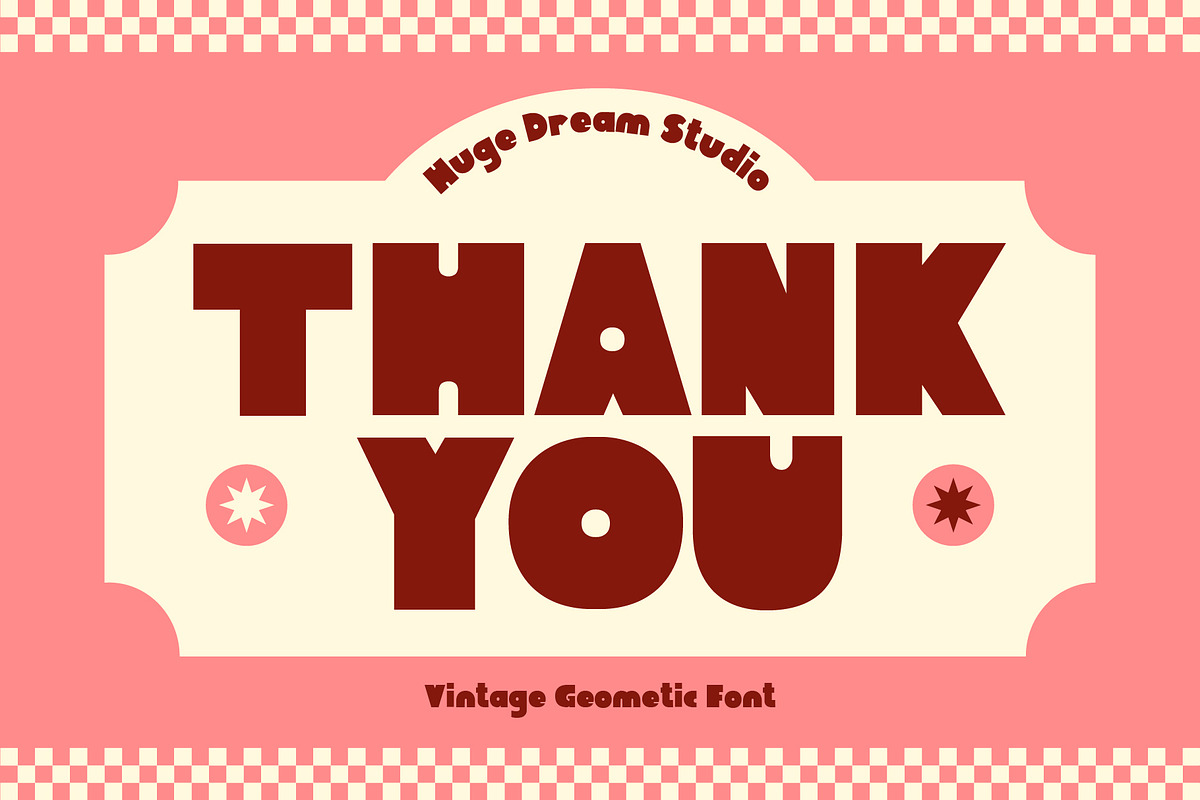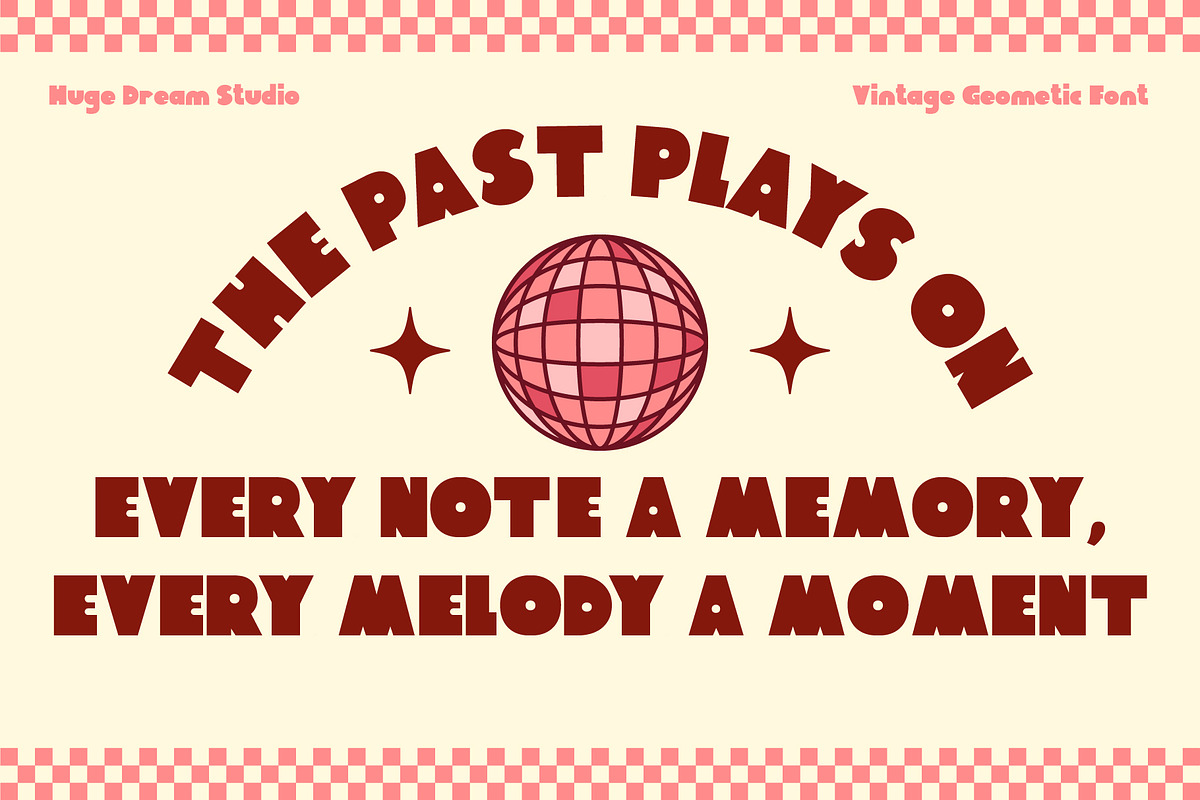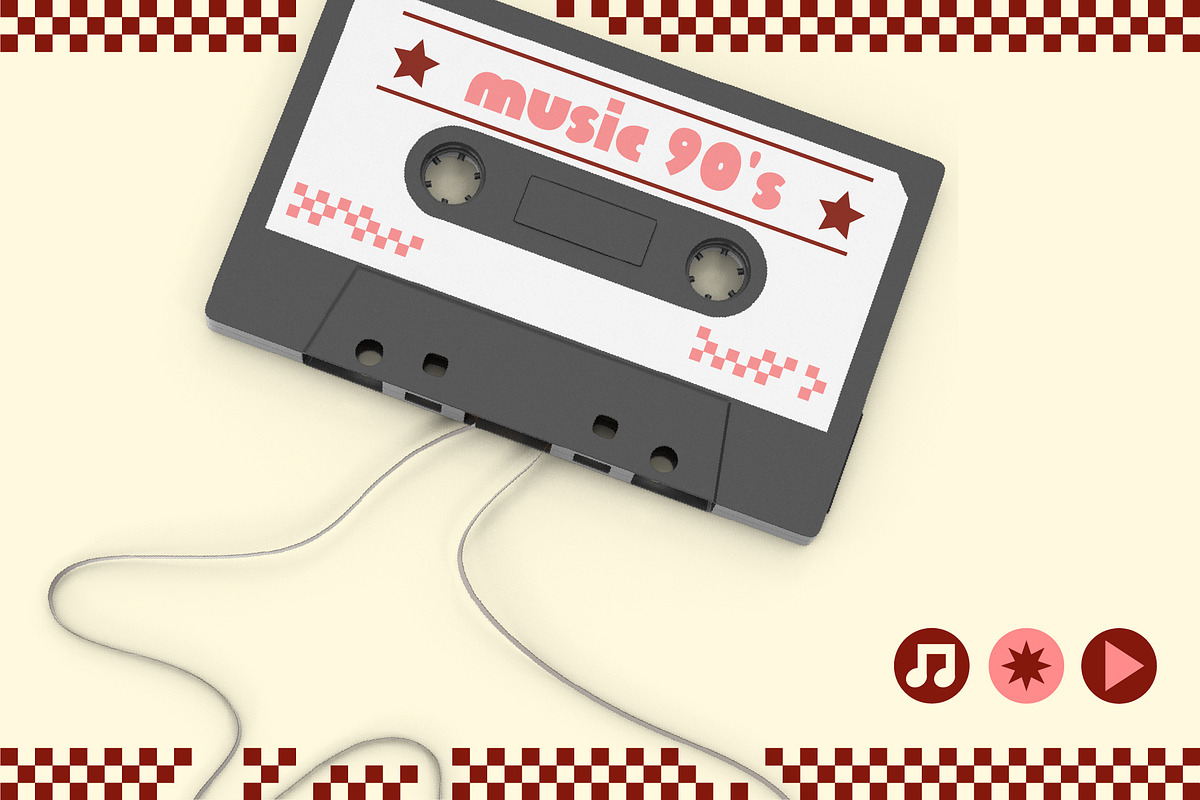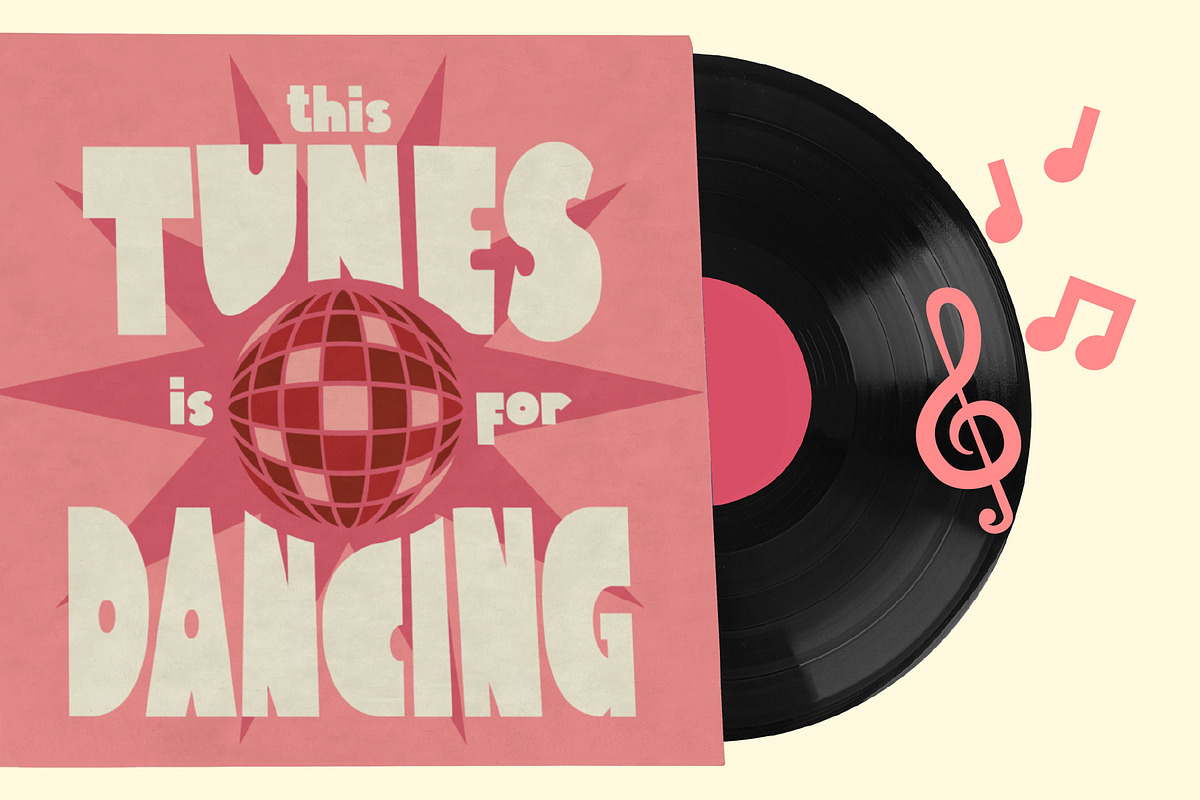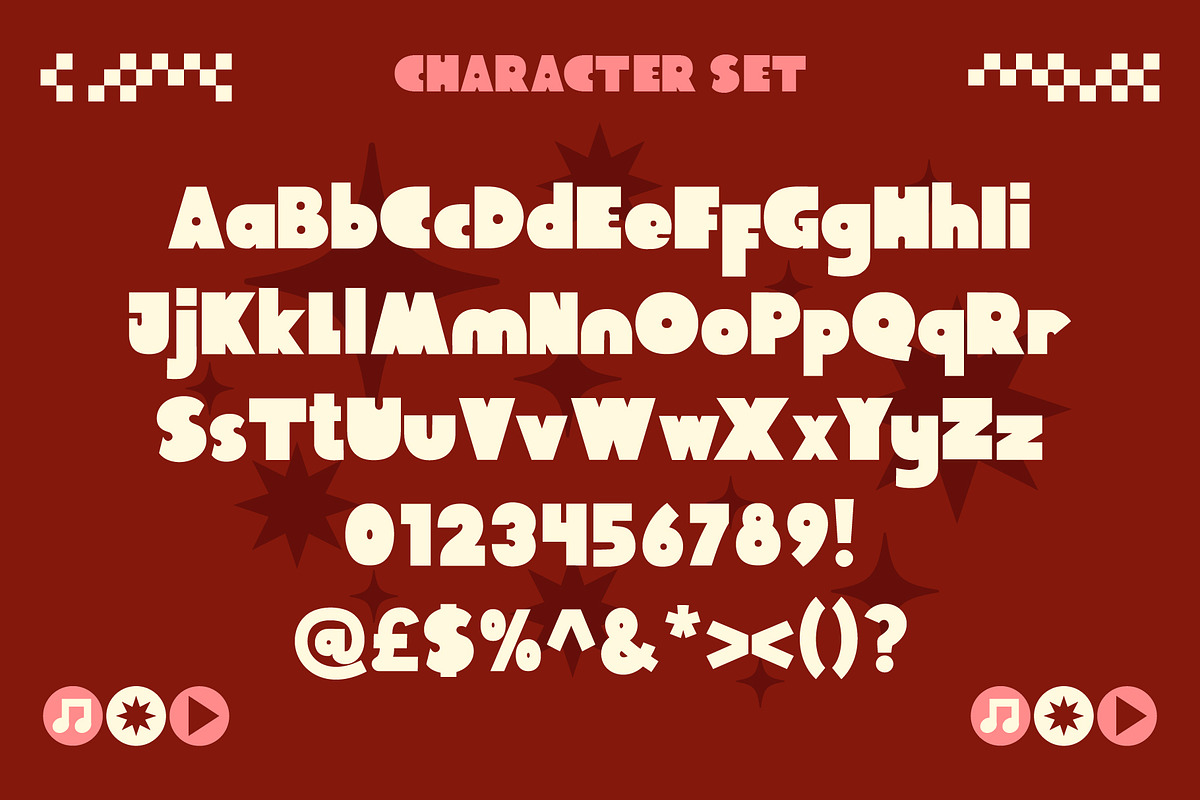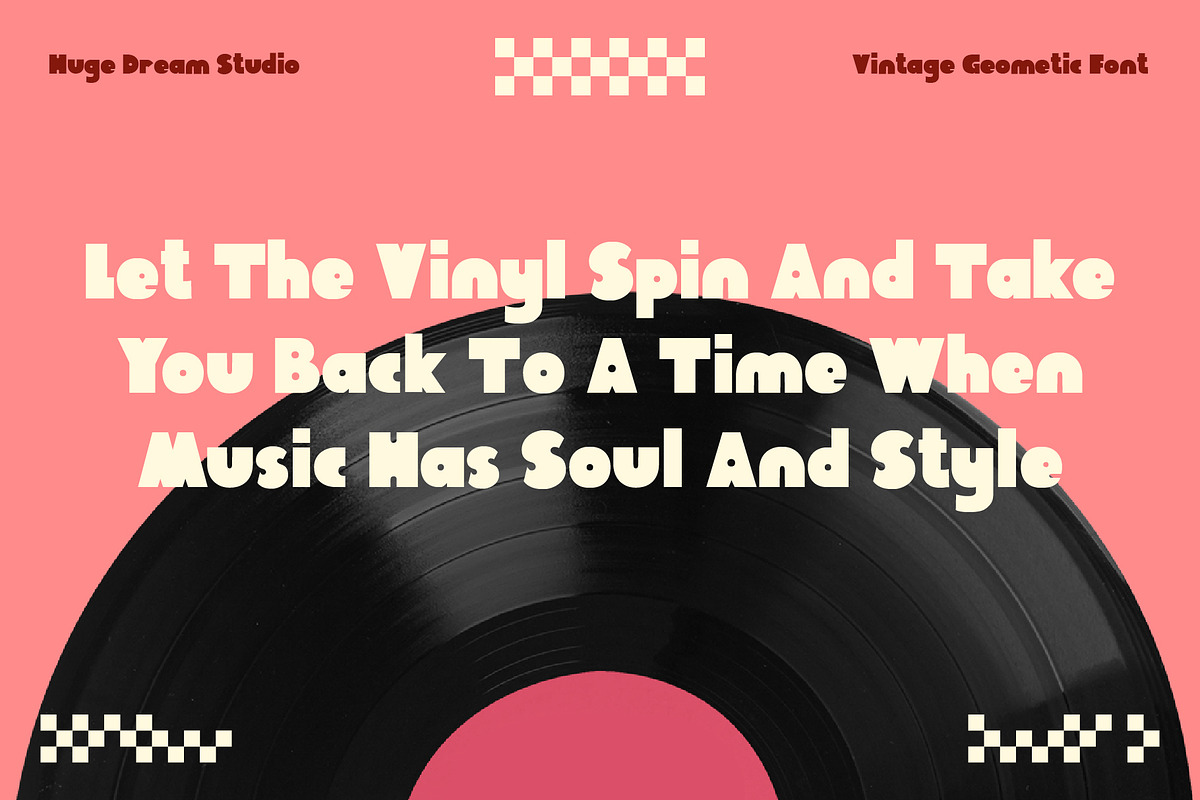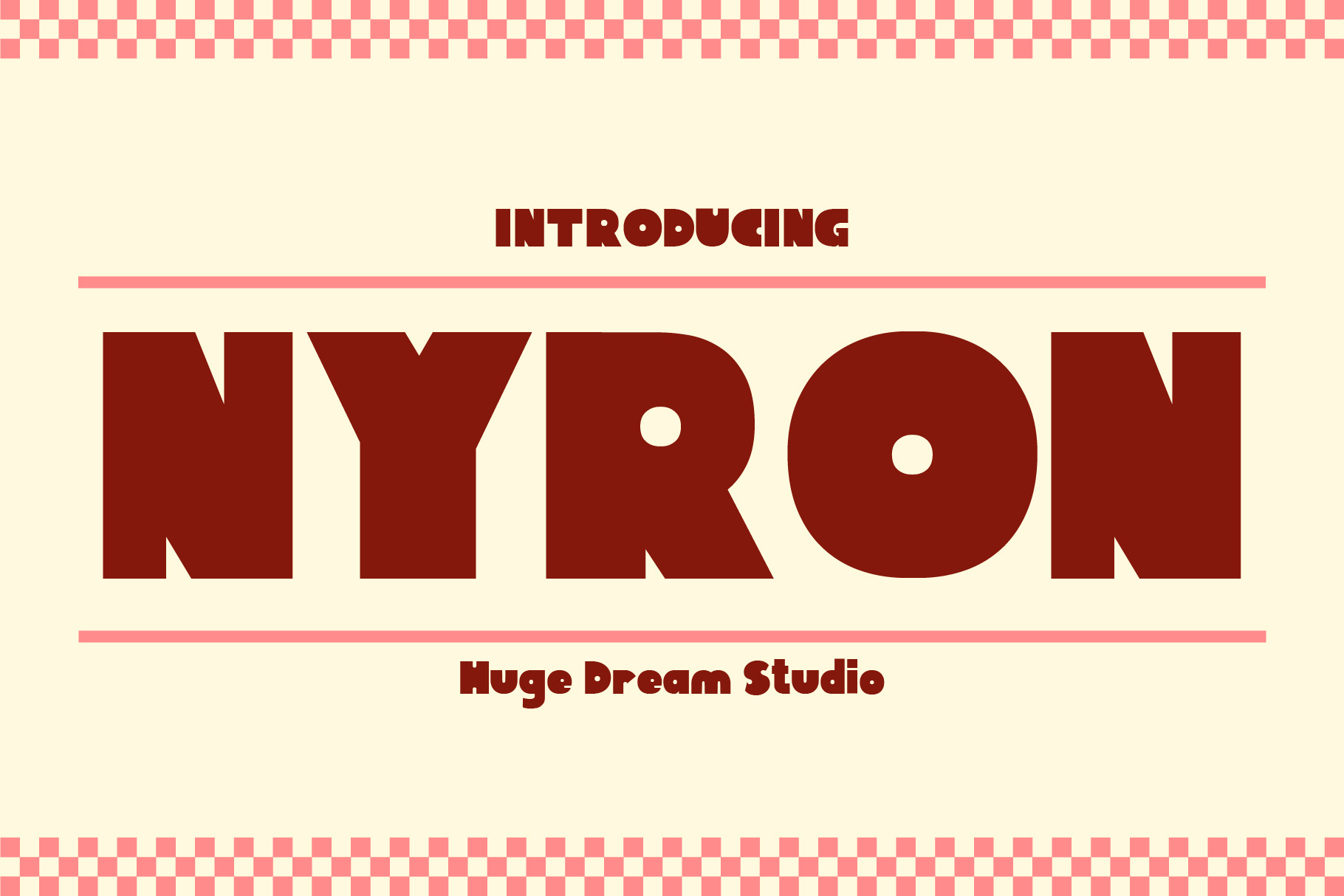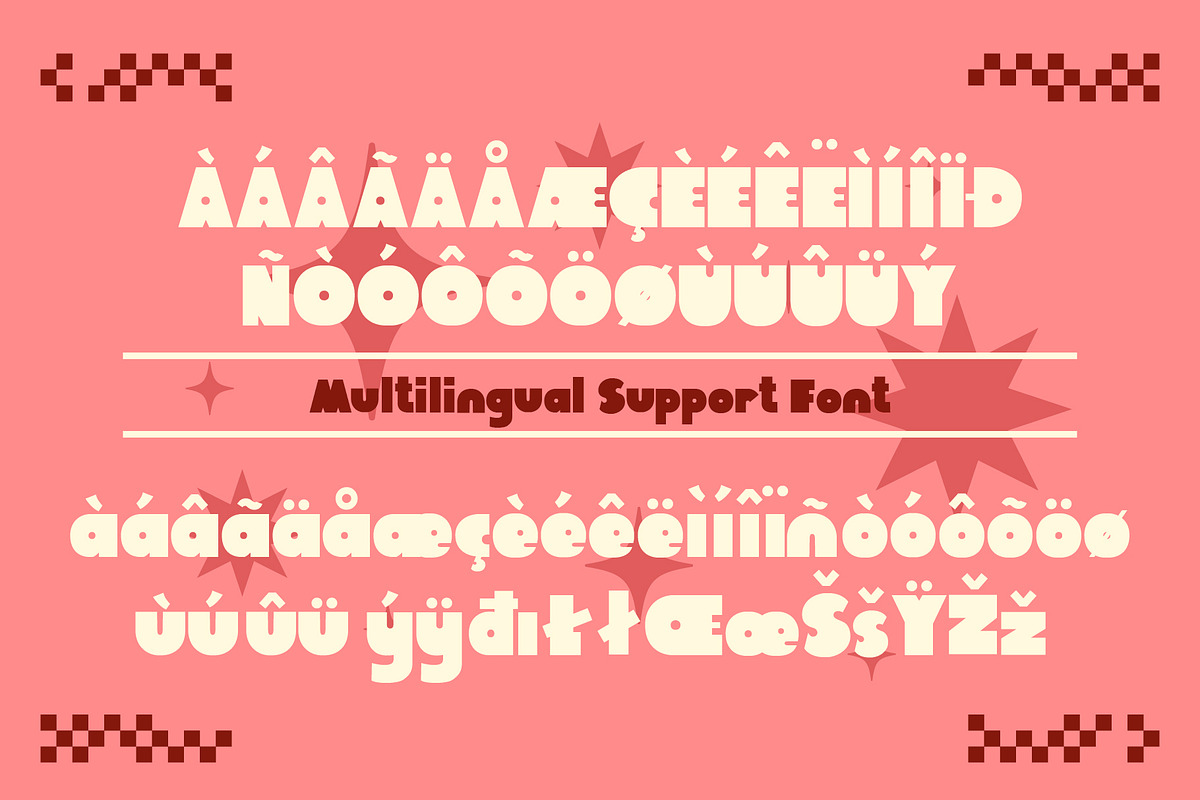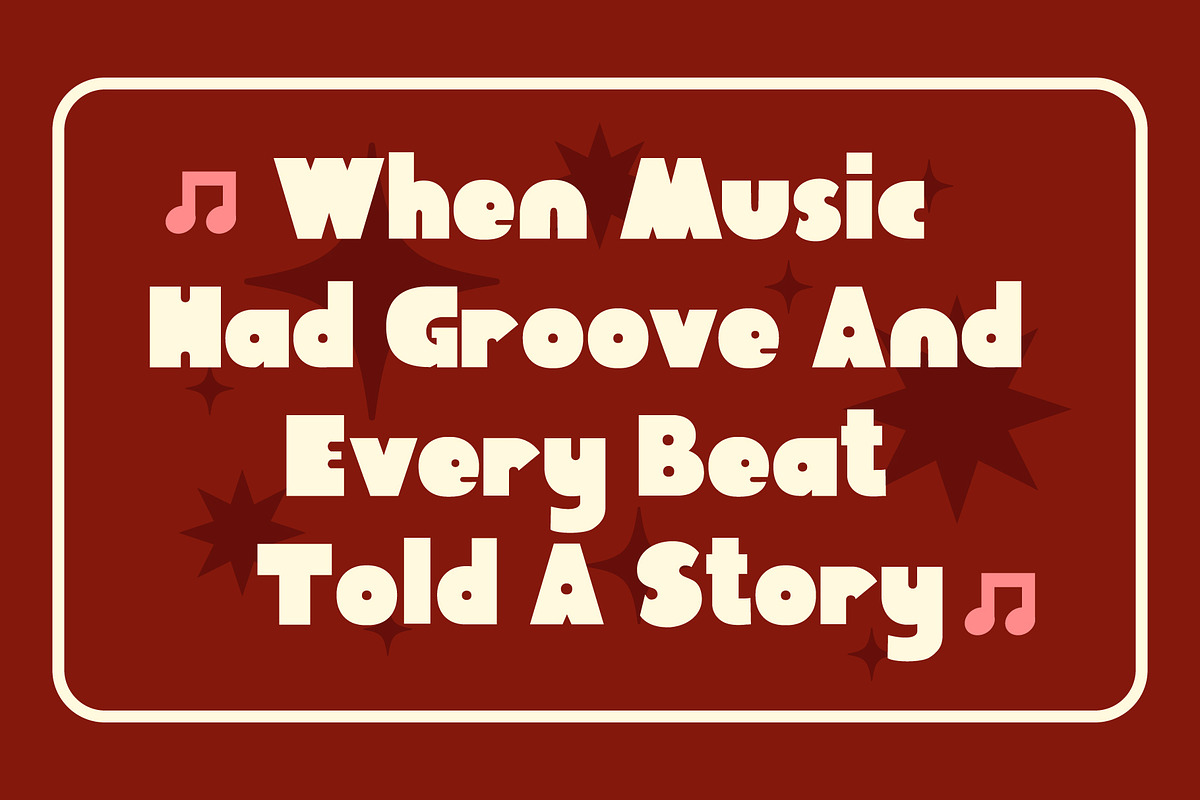
Nyron – Vintage Geometric Font
Step into a world where retro charm meets clean geometry. Nyron – Vintage Geometric Font inspired typeface built on bold, Basic Shapes and perfectly balanced between nostalgia and modern minimalism. Its rounded corners and precise lines create a timeless look that feels both familiar and fresh. Nyron adds a stylish twist without overpowering your message. It’s especially great for branding that wants to feel confident, approachable, and just a little bit retro. Let Nyron shape your story, one curve at a time.
Nyron – Vintage Geometric Font features:
- Character Set (Uppercase & Lowercase)
- Punctuation & Numbers